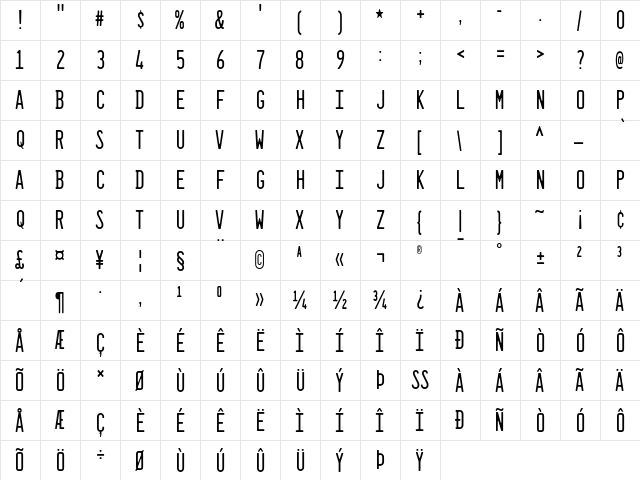
Dealerplate California
Design Context for Dealerplate Typeface
Dealerplate offers clean, dependable letterforms without strong stylistic allegiance, making it a practical choice for designers who need flexibility.
Pro Tip: Pair Dealerplate with a font of contrasting weight or personality to build a more expressive typographic hierarchy.